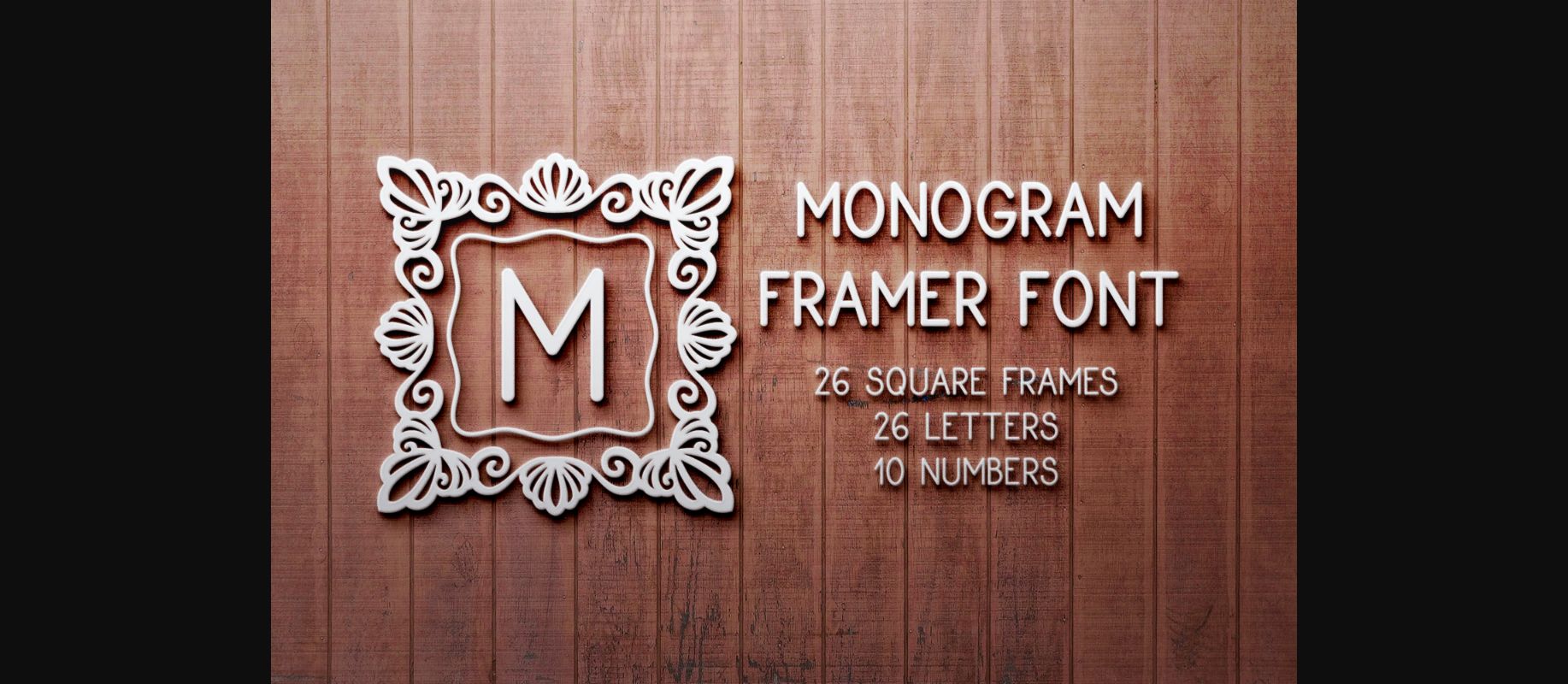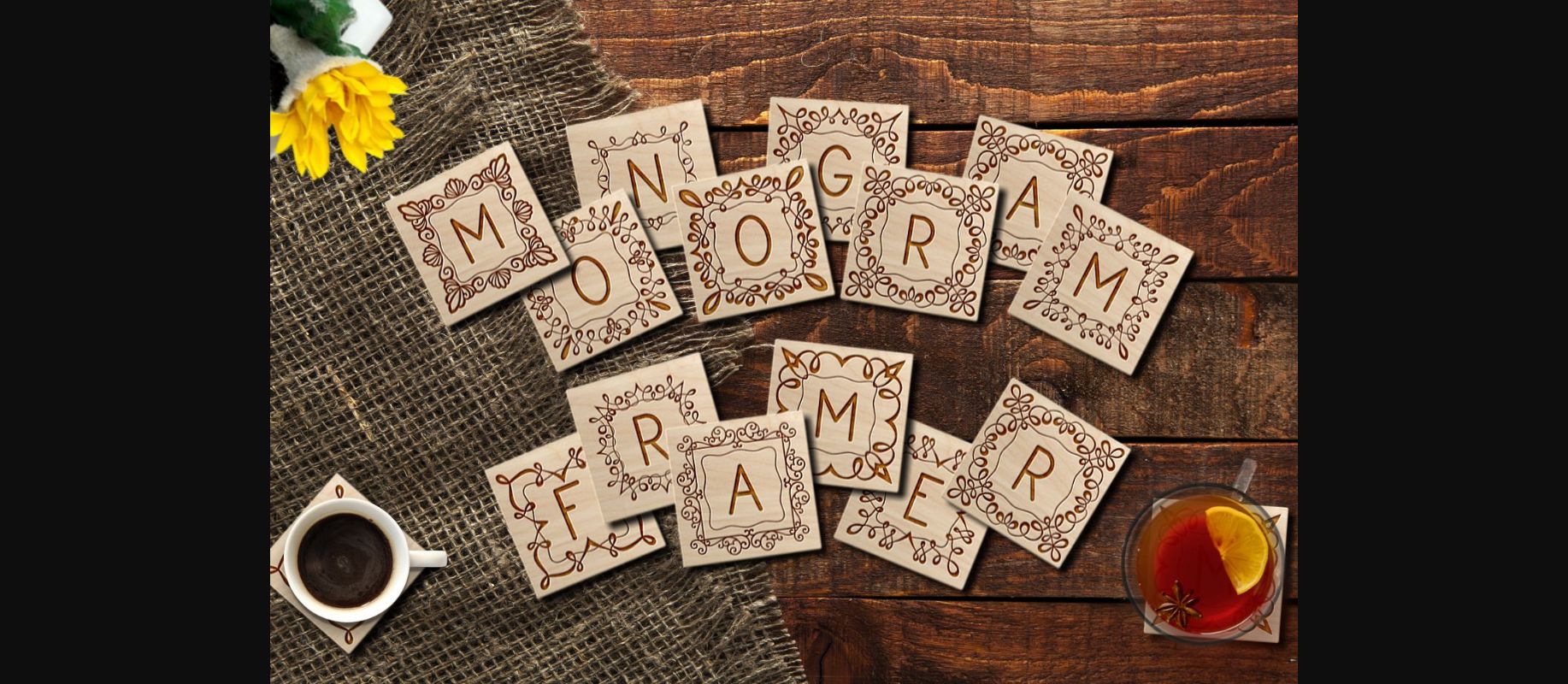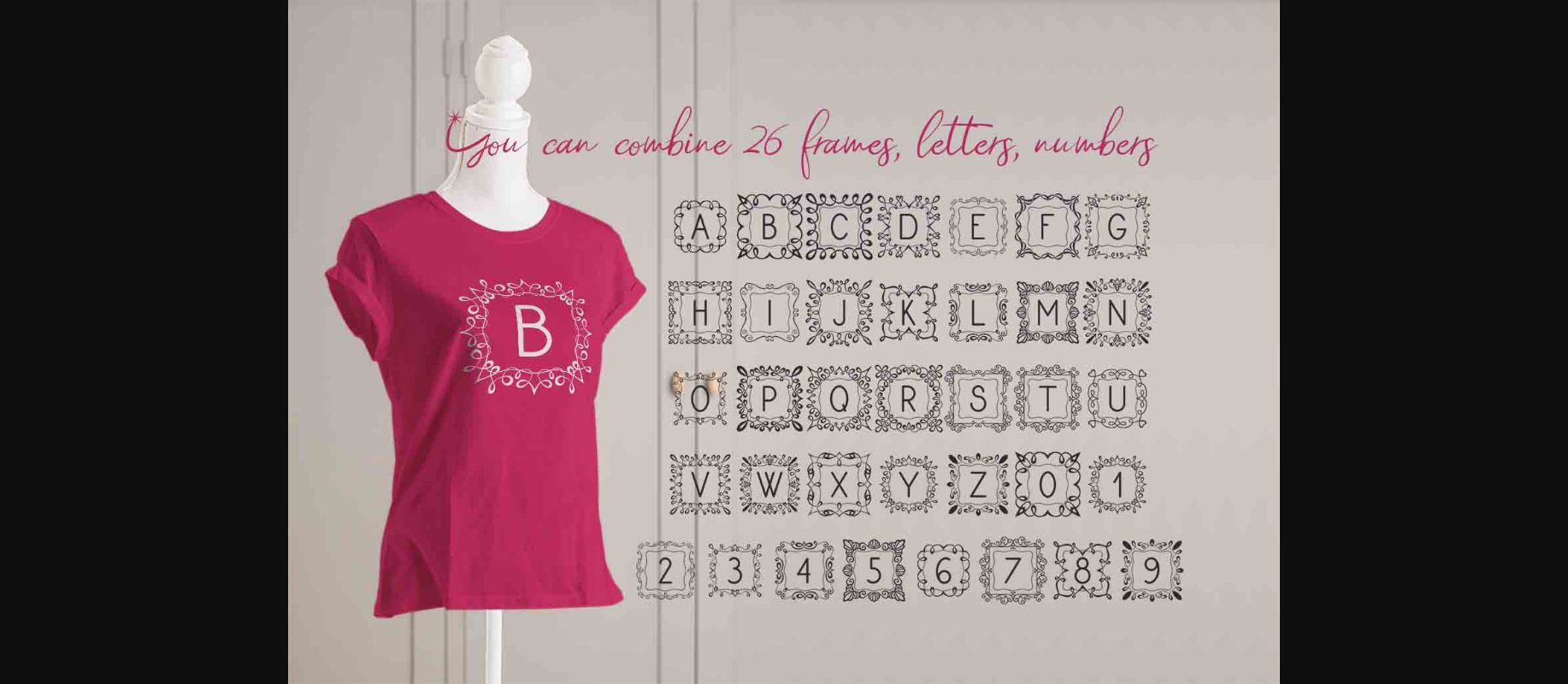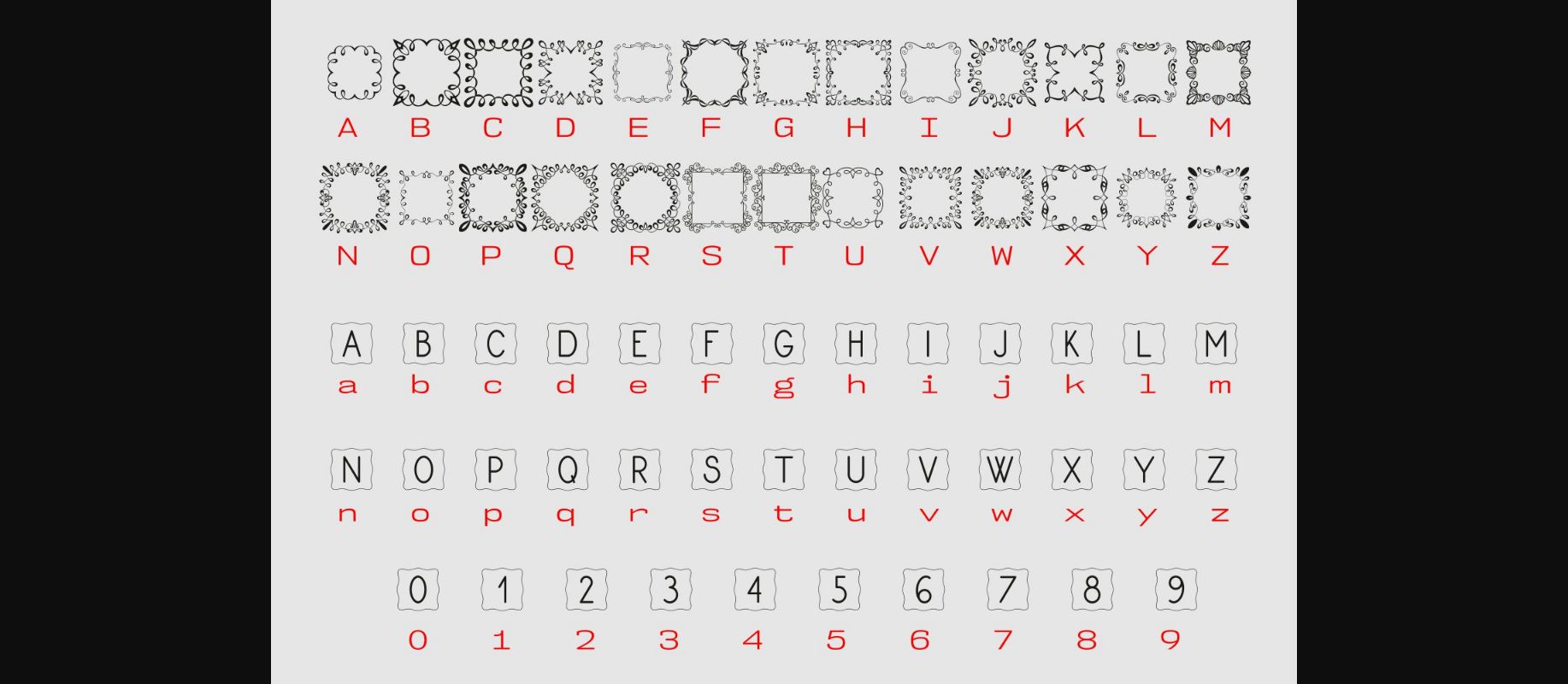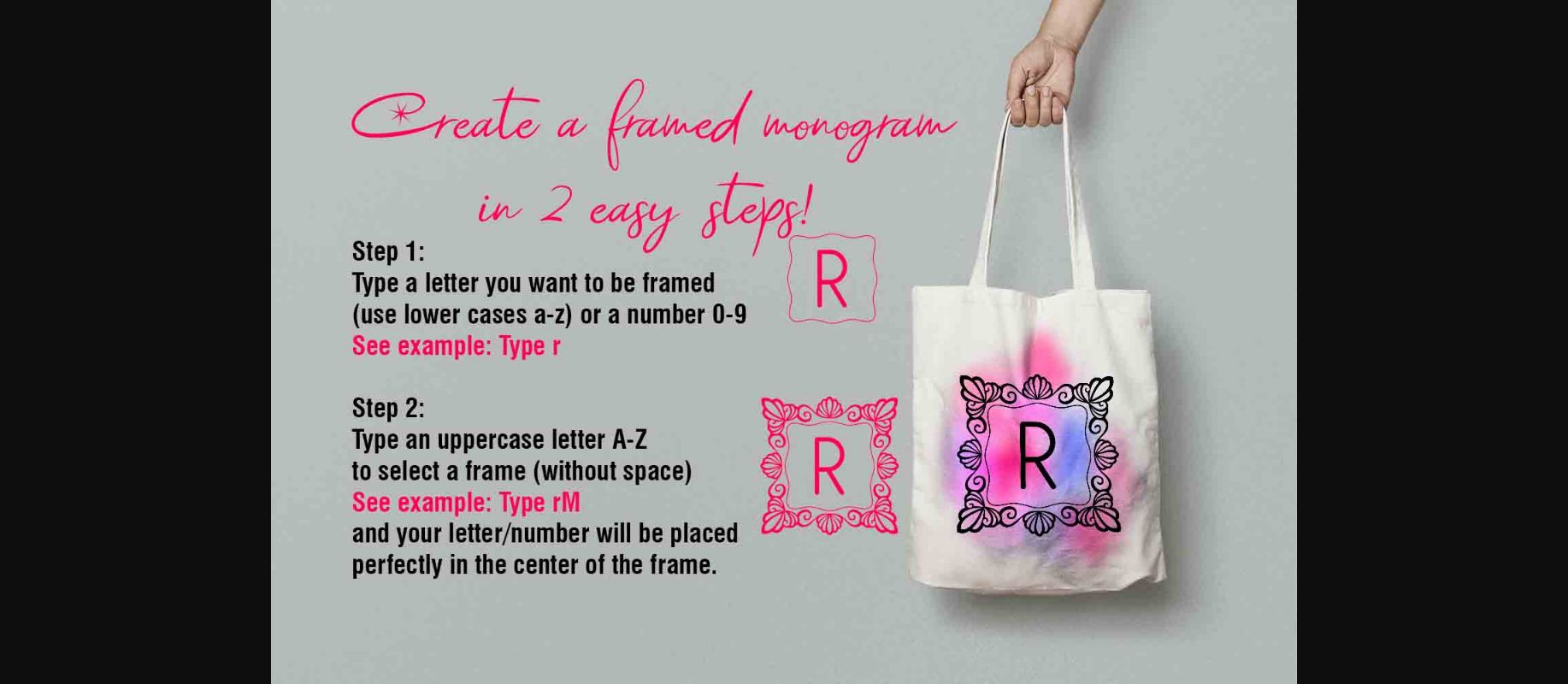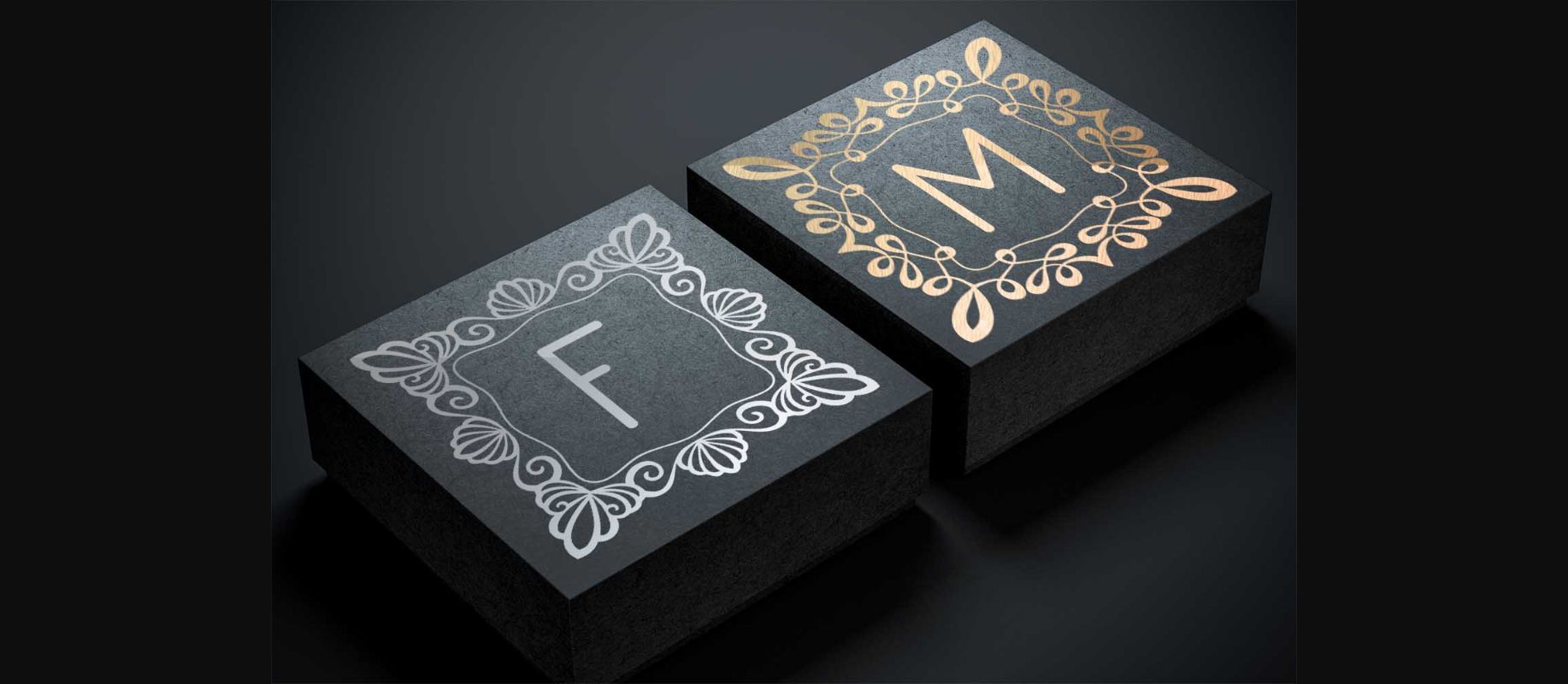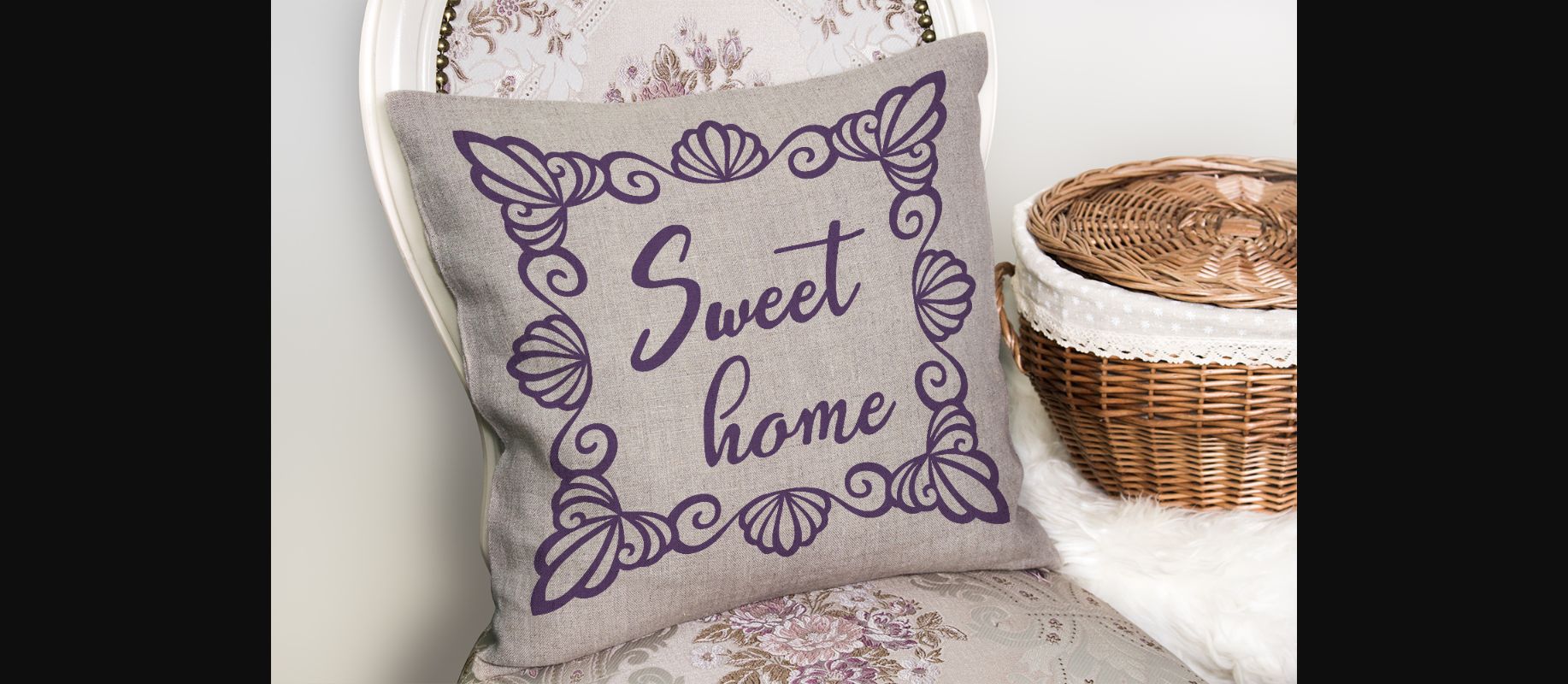
Monogram Framer Font
About Monogram Framer Font
Monogram Framer is a sweet and distinct decorative font. Fall in love with its authentic feel and use it to create gorgeous wedding invitations, beautiful stationary art, eye-catching social media posts, and cute greeting cards.